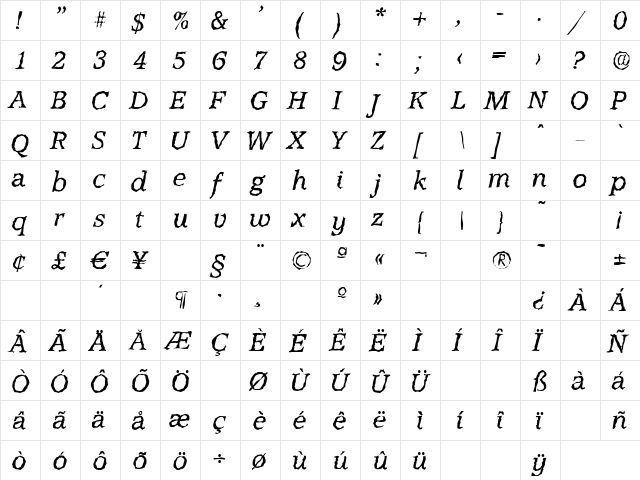
AccoladeRandom Italic
Design Context for AccoladeRandom Typeface
AccoladeRandom is a composed and adaptable typeface that performs quietly and consistently across a wide range of design contexts. Its italic angle brings a sense of urgency and motion to the letterforms.
Pro Tip: Use AccoladeRandom for emphasis, pull quotes, and subheadings where its slanted energy can add rhythm to the layout.